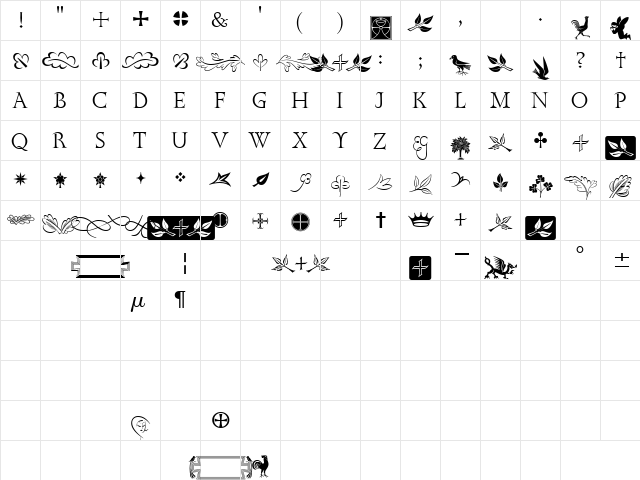
Golden Cockerel Init Orn ITC Regular
| Foundry | International Typeface Corporation |
| Designer | Dave Farey/Richard Dawson |
Design Context for Golden Cockerel Init Orn ITC Typeface
Golden Cockerel Init Orn ITC takes a measured approach to typography — its balanced proportions and neutral character make it a reliable workhorse for both digital and print work.